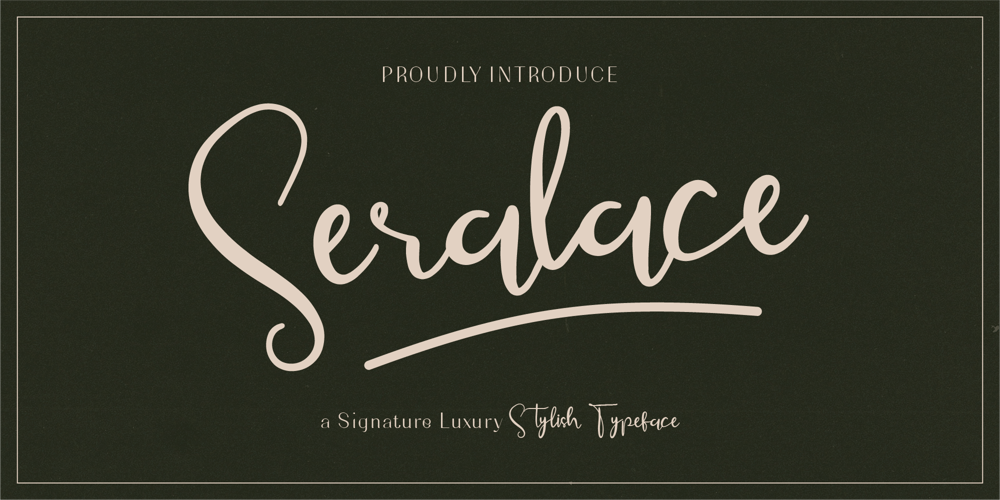
Seralace
Seralace font
Seralace Font Family was designed by Gilang Mei Nugraha, Frederik Aristaputra and published by Creatifont Studio. Seralace contains 1 styles and family package options. Seralace is a luxurious handwritten signature font that exudes elegance and modern sophistication. With its fluid, gracefully arranged strokes and well-crafted balance, this font radiates a stylish yet timeless charm. The subtle curves and delicate letterforms make it ideal for wedding invitations, branding projects, and romantic designs. Whether you’re crafting classy logos or heartfelt messages, Seralace delivers a refined touch that transforms any project into a masterpiece. Its modern yet elegant appeal ensures versatility while retaining its uniquely graceful personality.A SUMMARY OF WHAT’S INCLUDED: Standard Character A-Z, a-z, 0-9, Punctuation & symbols Regular Styles Multilingual Support Ligatures and Alternates Included Works on PC & Mac Simple installation Accessible in Adobe Creative Suite (Ai, Ps, Id, etc.) even work on Microsoft Word. PUA Encoded Characters – Fully accessible without additional design software. 🌟If you come across any issues or notice anything we might have overlooked while using this product, please feel free to reach out to us. We greatly value your feedback as it helps us enhance and refine our products. Thank you!